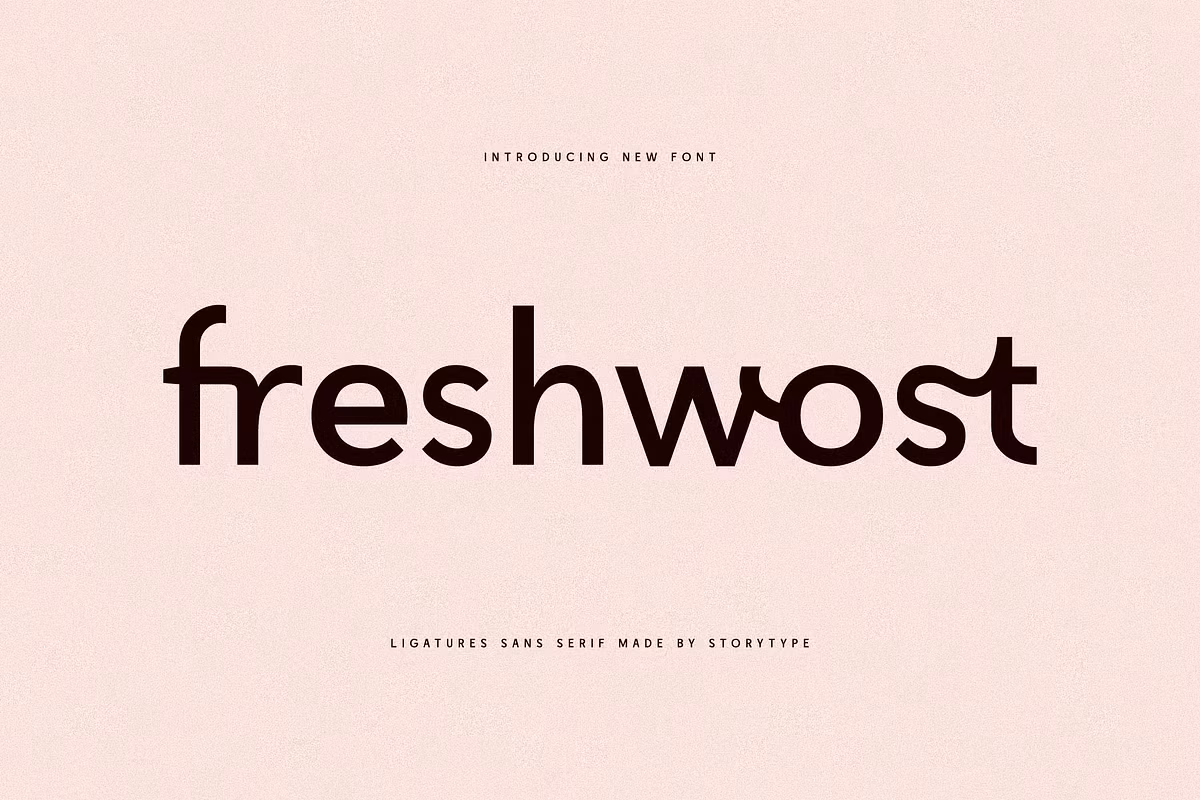
Freshwost Ligatures Sans Serif Font Free Download
You must purchase this font for commercial use. However, you can download Freshwost Ligatures Sans Serif Font Free Download for testing purposes. Freshwost is a clean, modern sans-serif typeface enhanced with elegant ligatures, making it a stylish and versatile choice for branding, logos, fashion editorials, website headers, packaging, and minimalist social media content.
Freshwost stands out with its smooth lines, balanced proportions, and creative ligatures that add a unique character to your typography. It effortlessly combines simplicity with a touch of sophistication, allowing your text to feel both approachable and refined. Whether you're crafting a modern brand identity or working on sleek digital designs, Freshwost Ligatures Sans Serif Font Free Download offers a fresh, contemporary aesthetic that elevates your work.
This font is perfect for designers who want clean elegance with subtle flair. Download Freshwost Ligatures Sans Serif Font Free Download today to test its creative potential, and be sure to purchase the appropriate license for any commercial use. Let your designs speak with clarity and class.